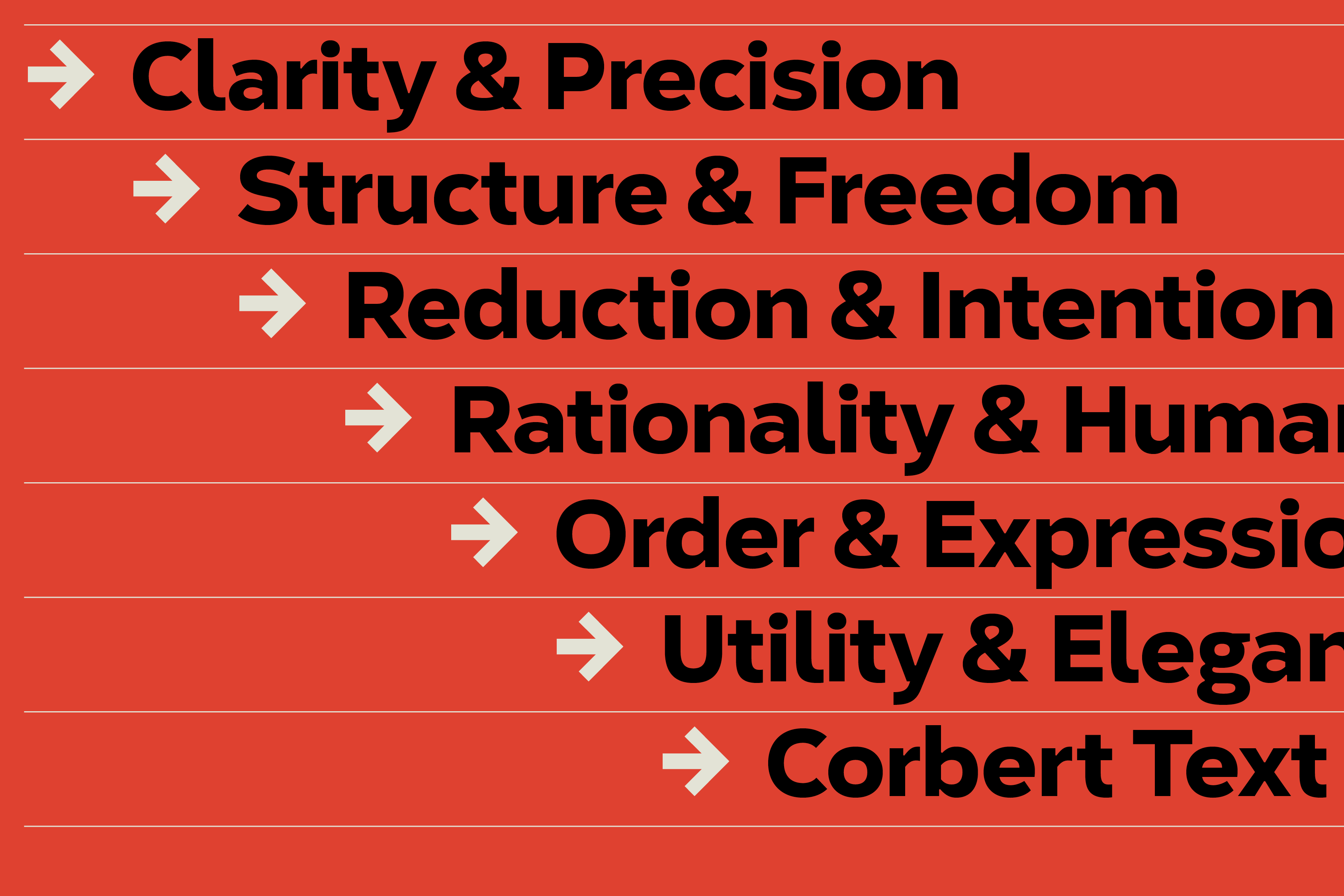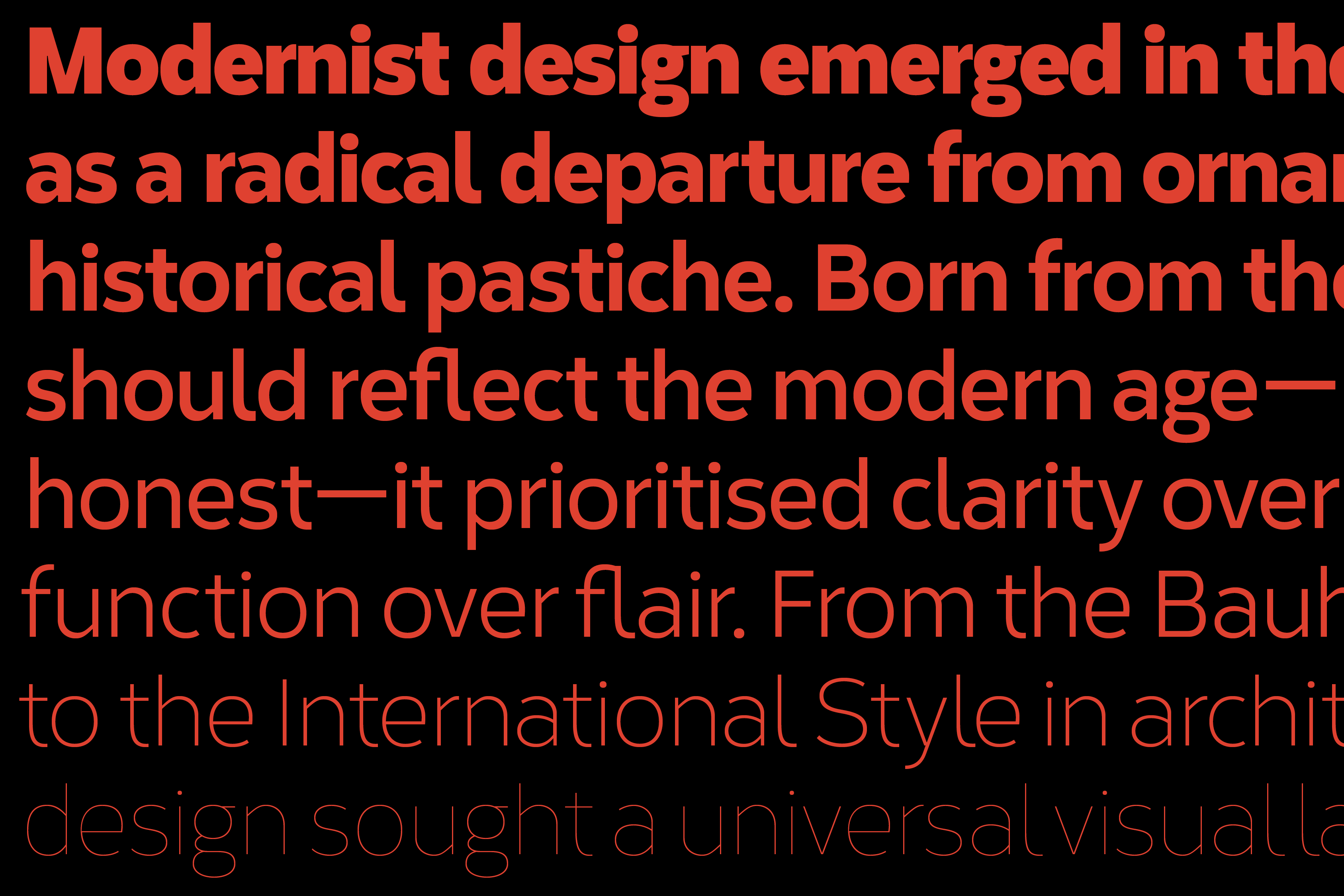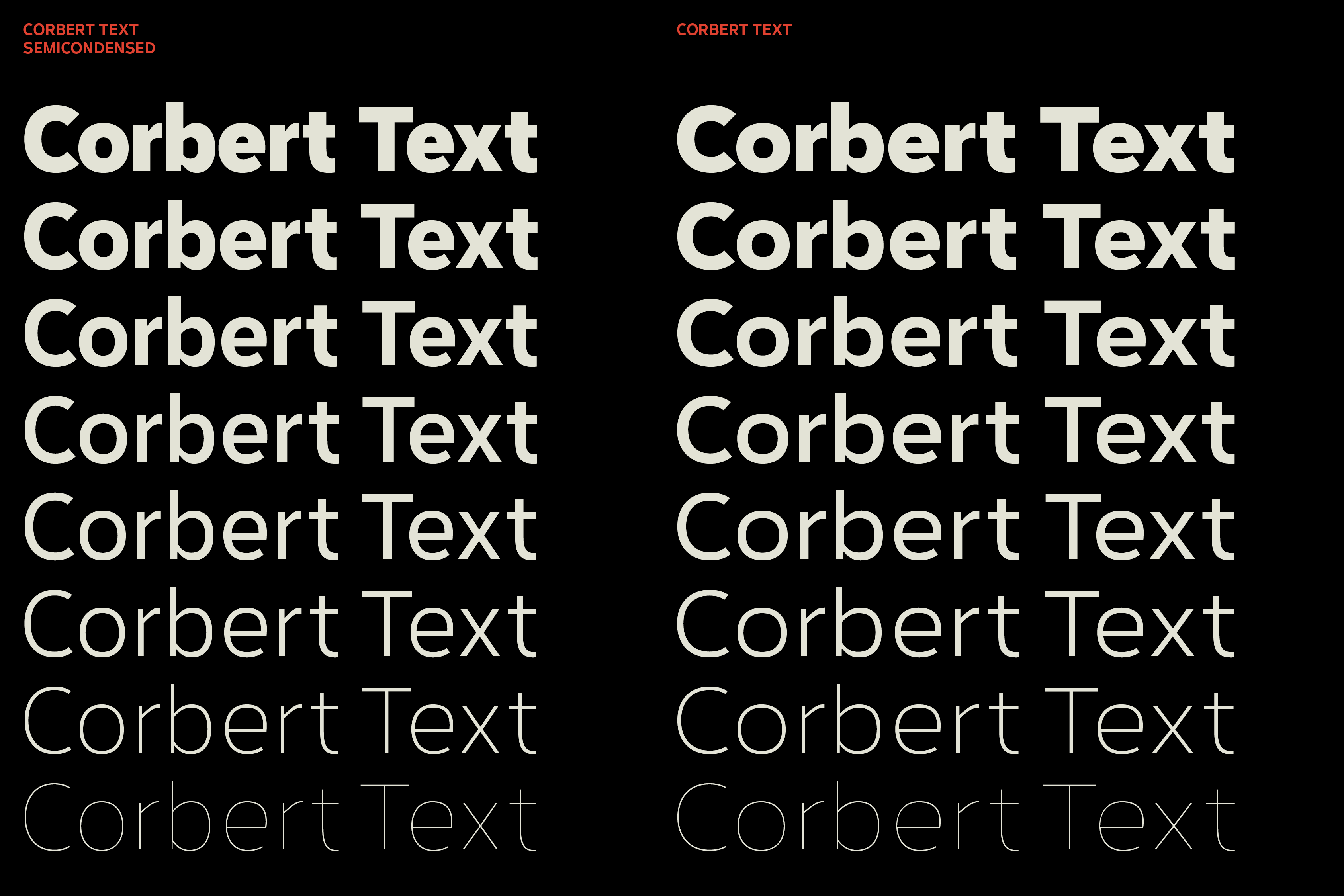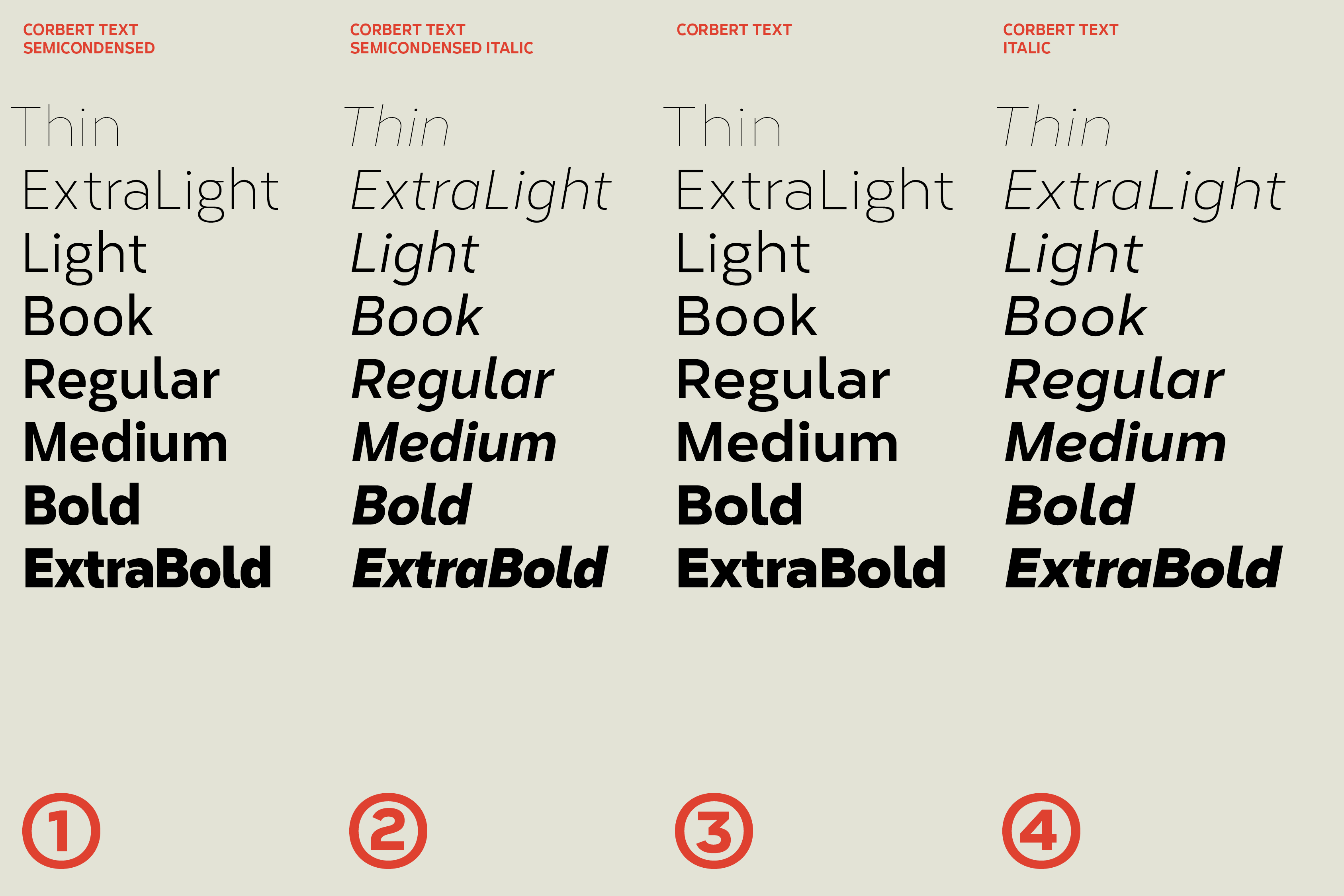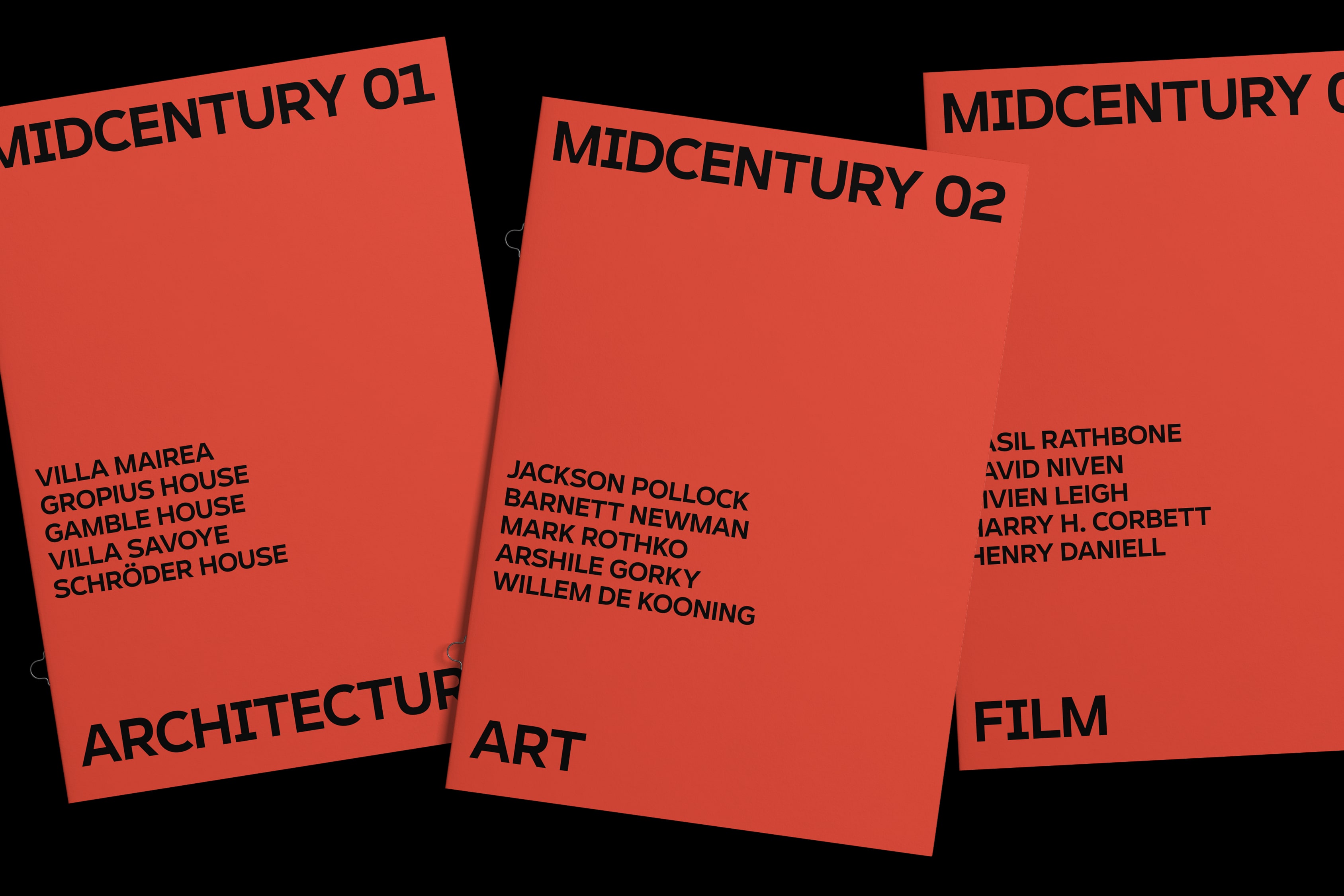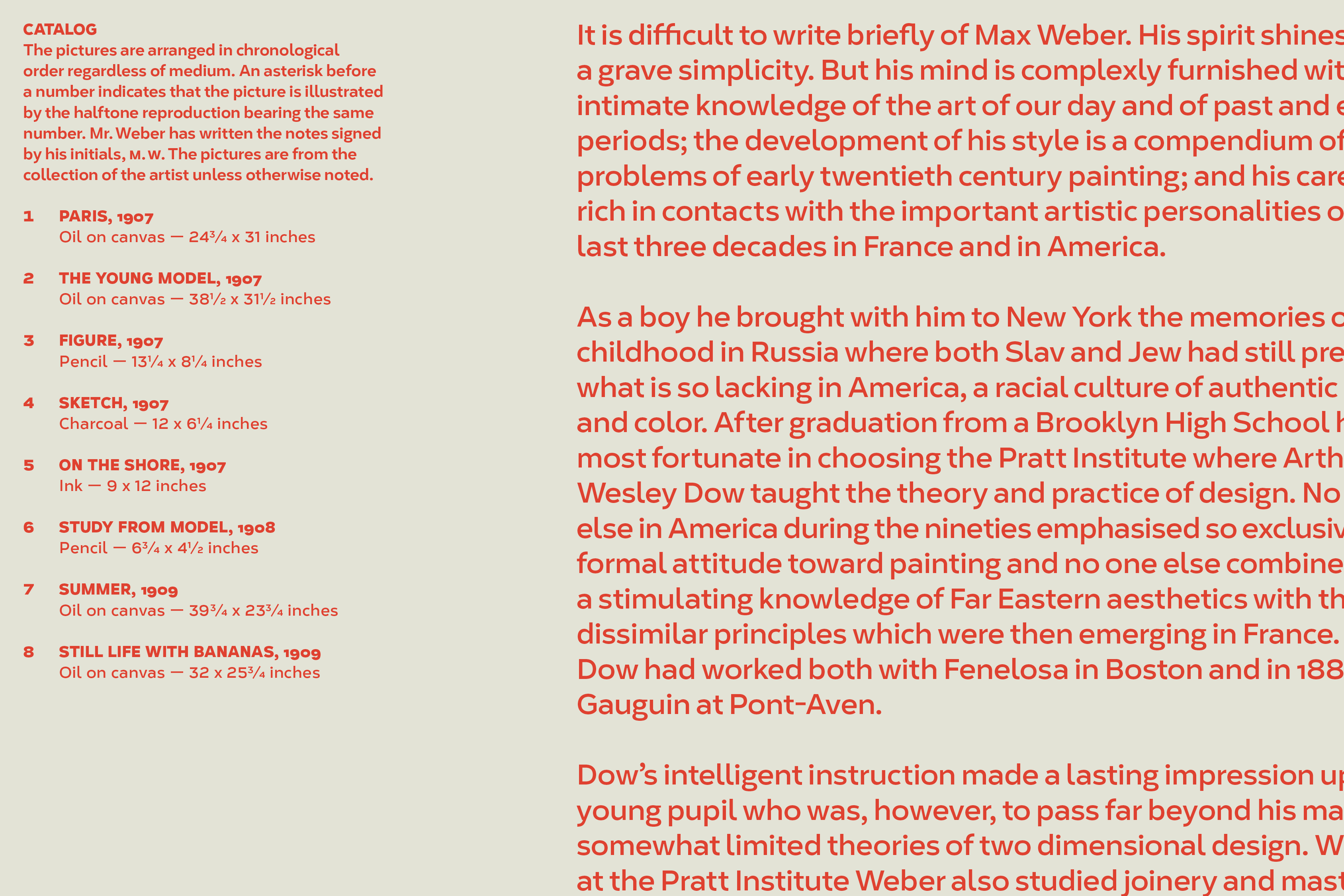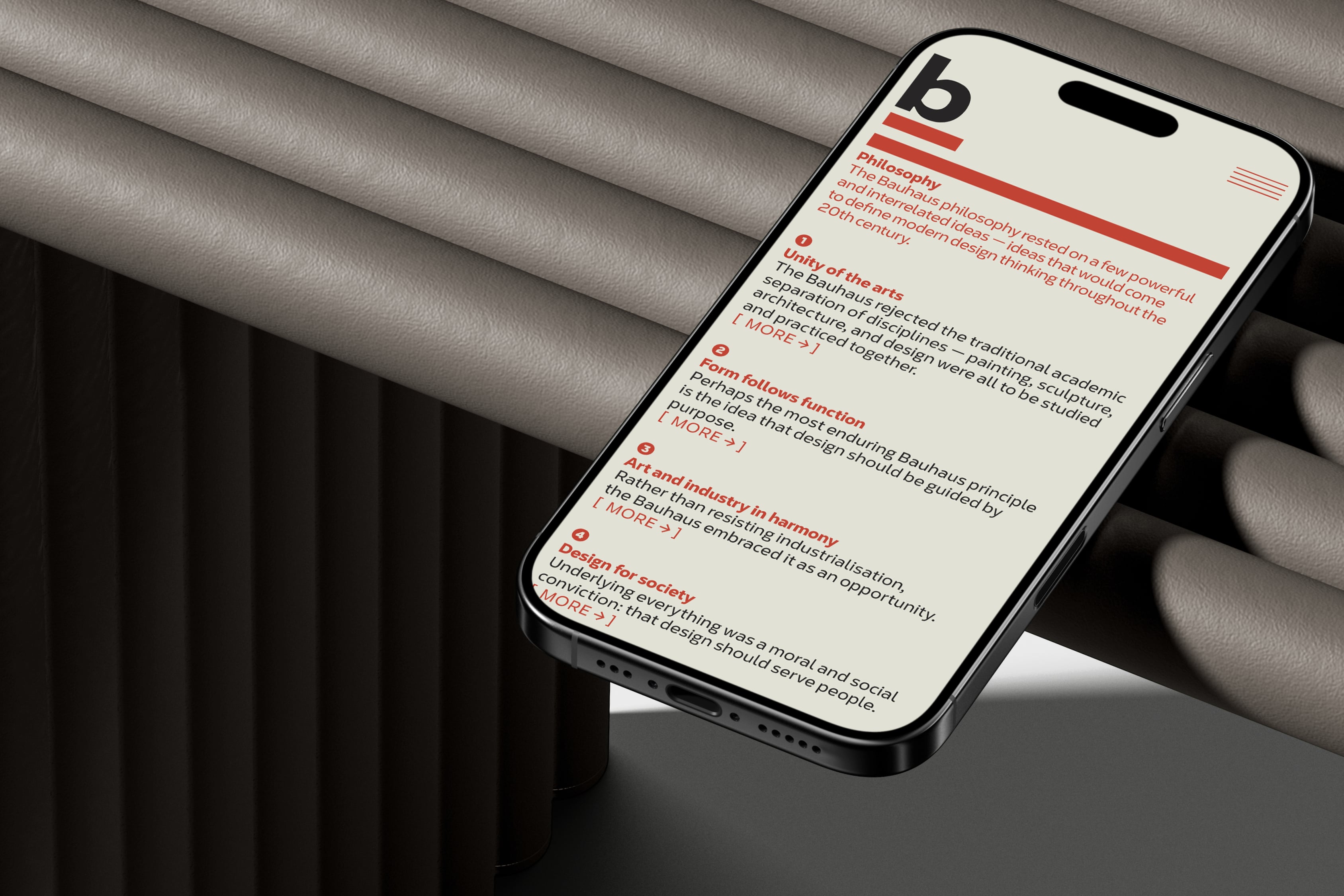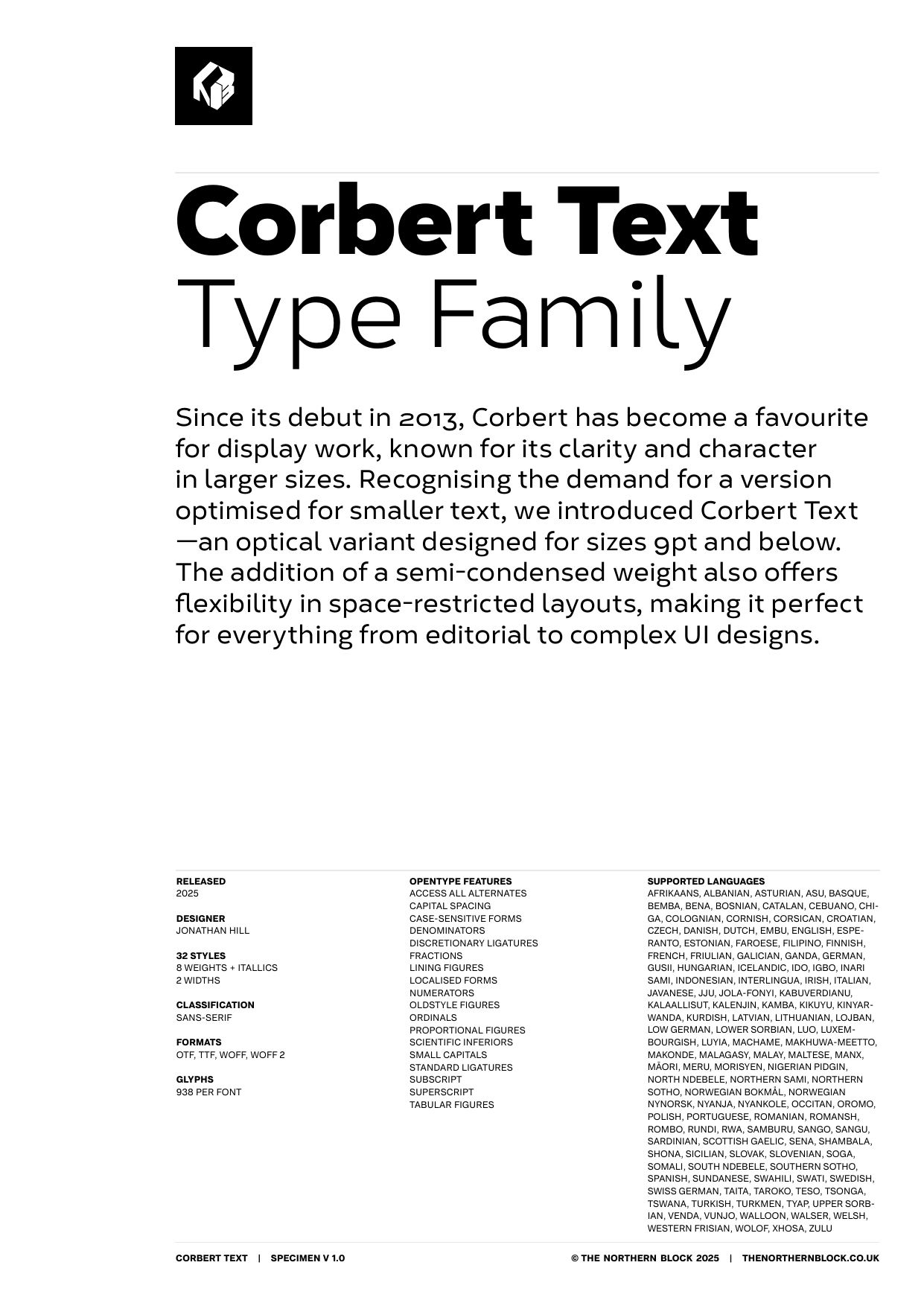
Corbert Text Collection
Corbert Text
Thin SemiCondensed Italic ExtraLight SemiCondensed Italic Light SemiCondensed Italic Book SemiCondensed Italic Regular SemiCondensed Italic Medium SemiCondensed Italic Bold SemiCondensed Italic ExtraBold SemiCondensed ItalicSince its debut in 2013, Corbert has become a favourite for display work, known for its clarity and character in larger sizes. But as design needs evolved, so did Corbert. Recognising the demand for a version optimised for smaller text, we introduced Corbert Text—an optical variant designed for sizes 9pt and below. Rather than simply increasing the x-height, the entire typeface was scaled and refined, enhancing legibility while preserving Corbert’s distinctive geometric charm. The addition of a semi-condensed weight also offers flexibility in space-restricted layouts, making it perfect for everything from editorial spreads to complex UI designs.
The Corbert Text family offers eight weights from Thin to ExtraBold, each with matching italics, plus a semi-condensed style for tighter spaces. It includes over 935 characters per style, supporting Western, Central, and Eastern European languages. The typeface also features a wide range of OpenType options, such as stylistic alternates, ligatures, small caps, circled numbers, case-sensitive forms, tabular and proportional figures, fractions, superscripts, and subscripts.